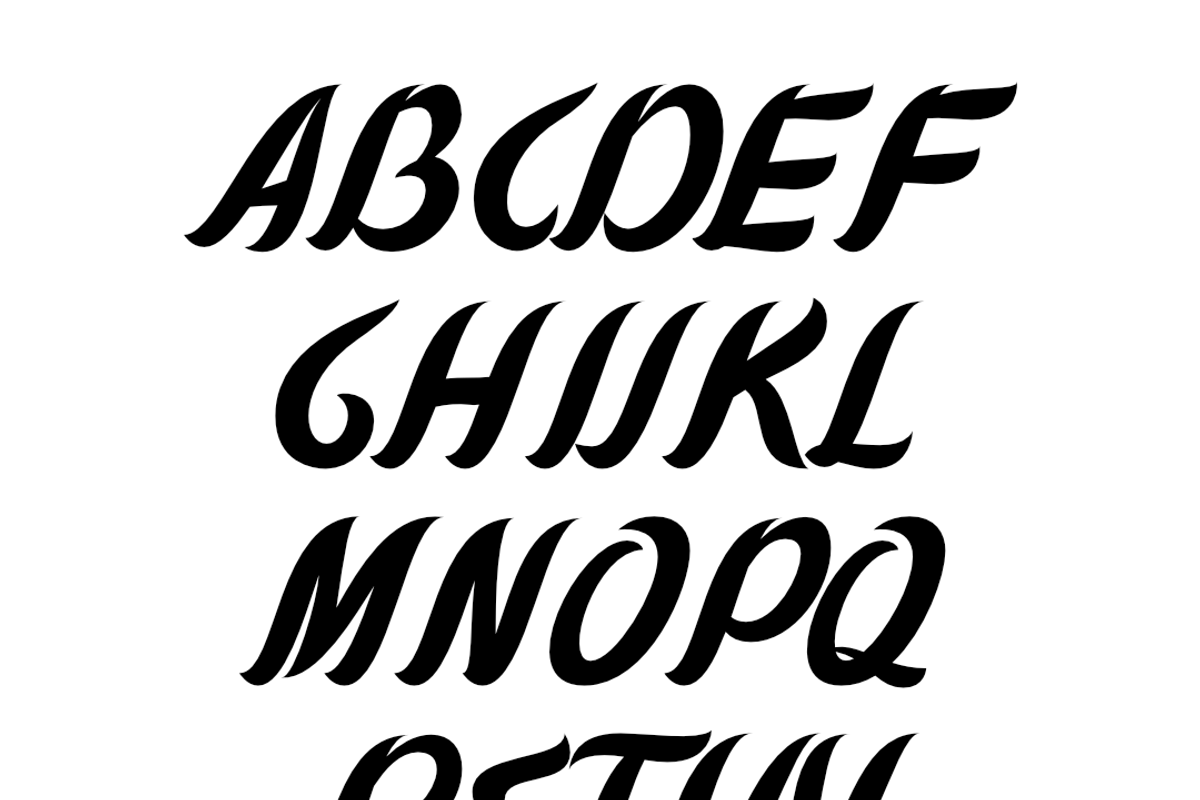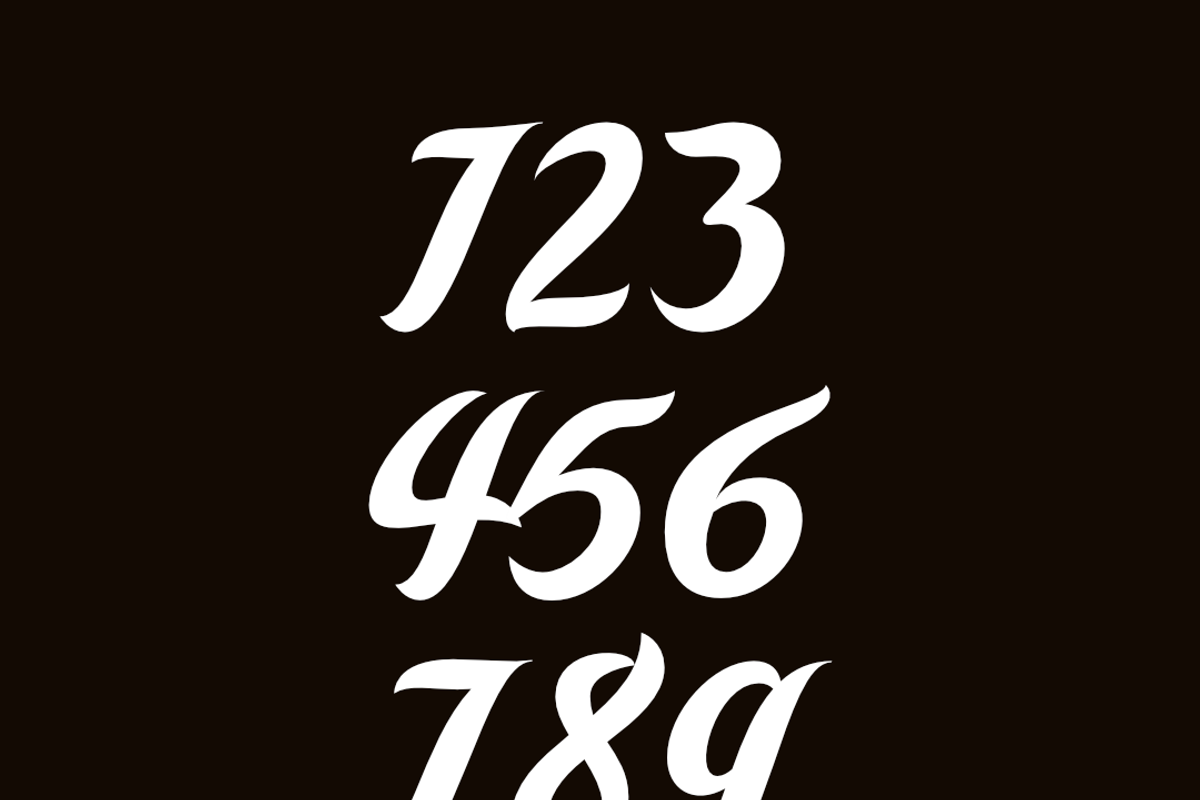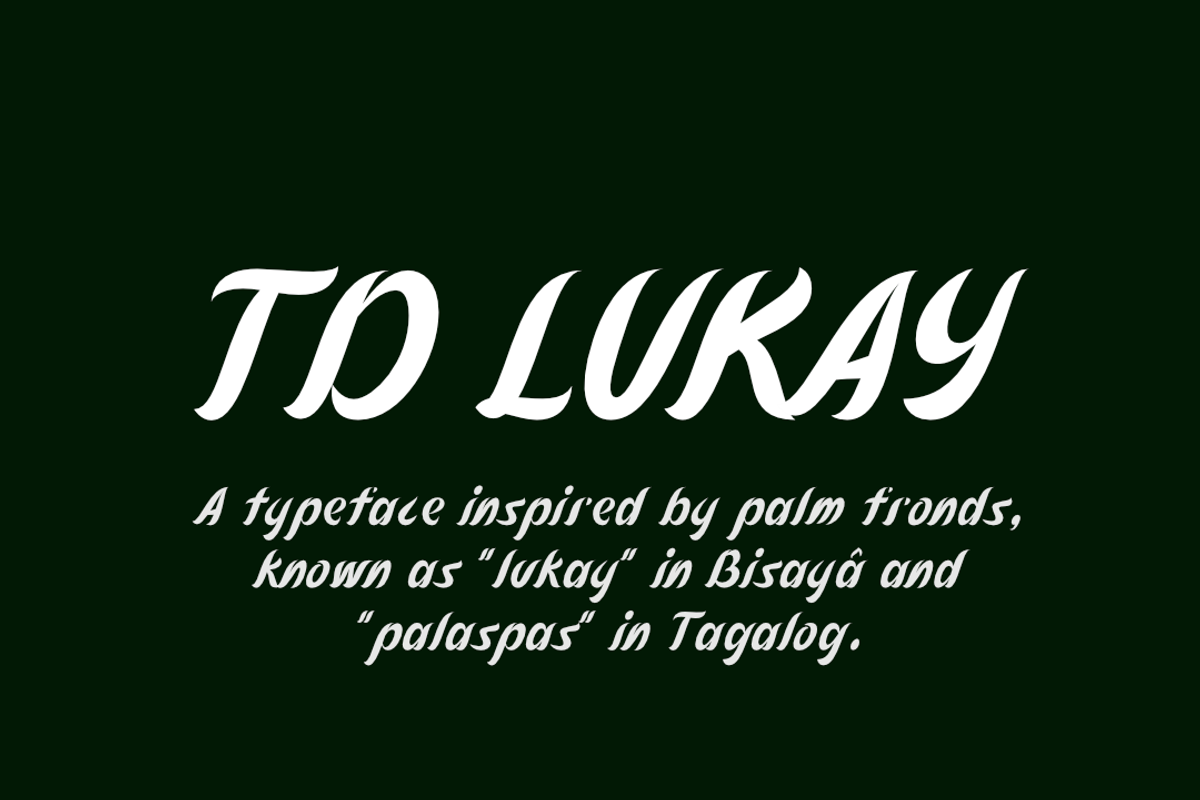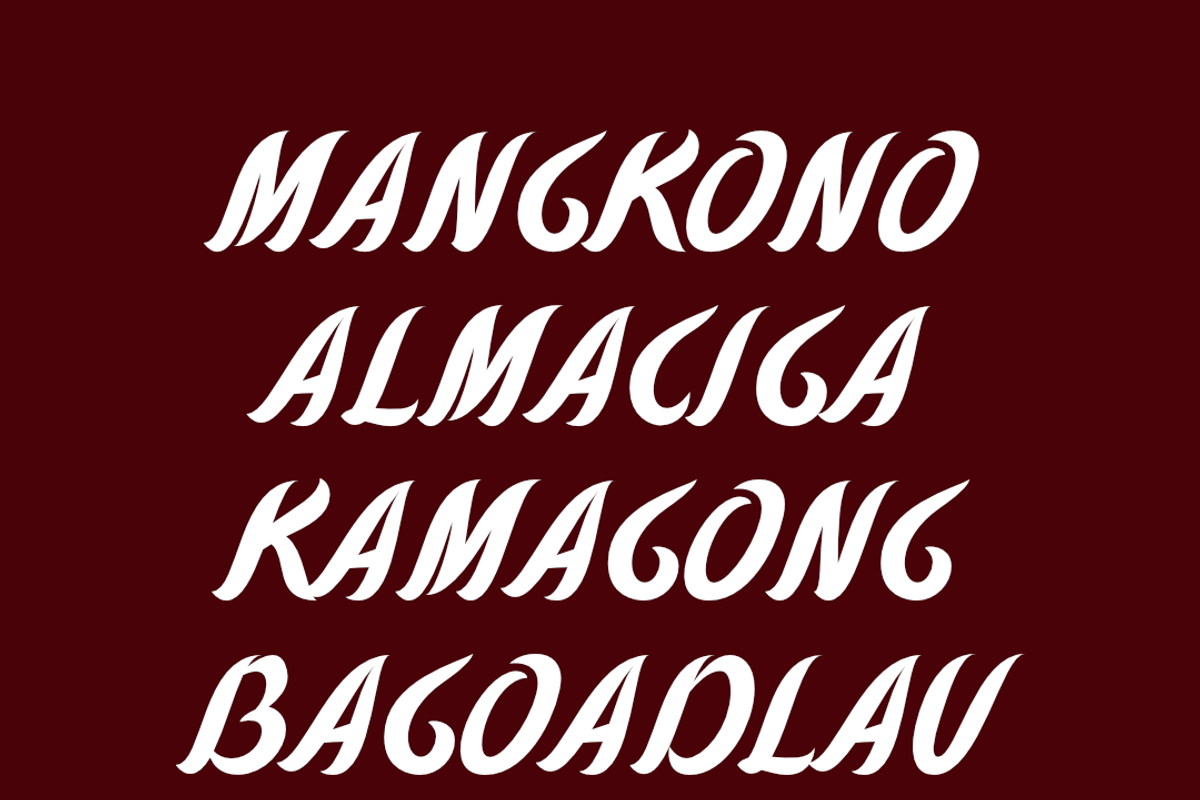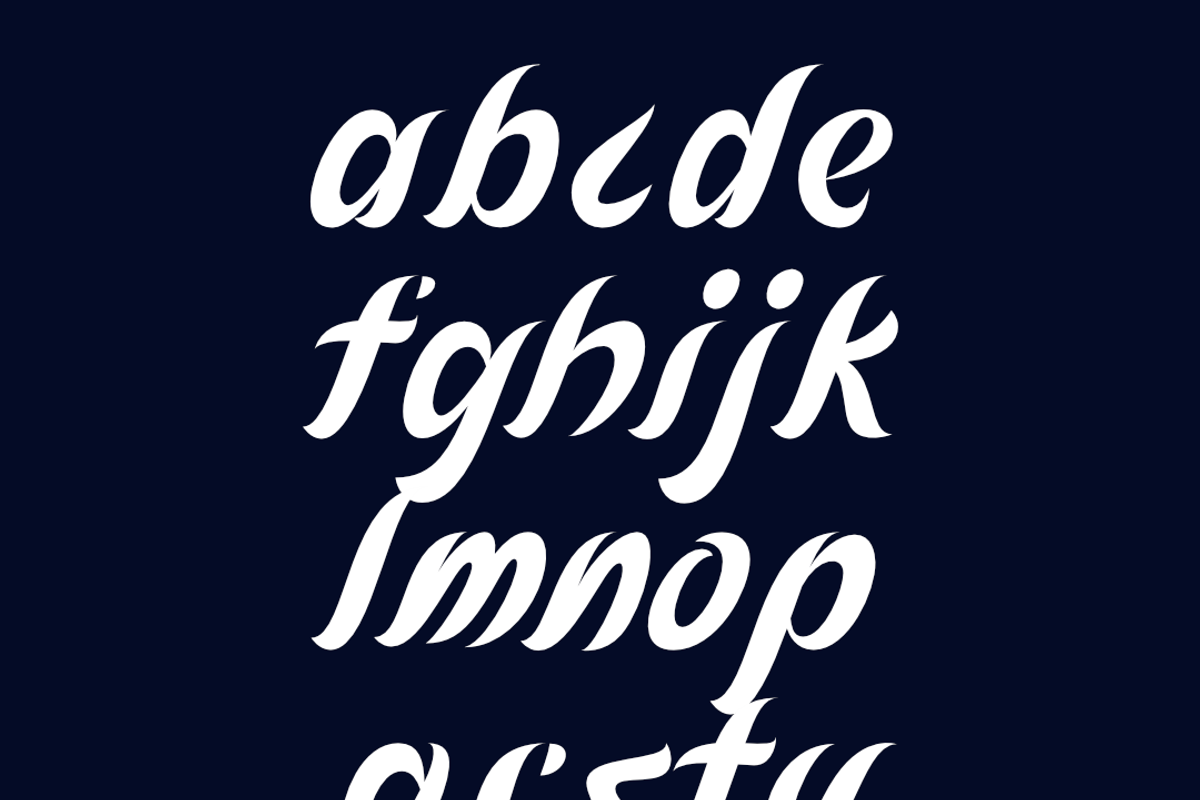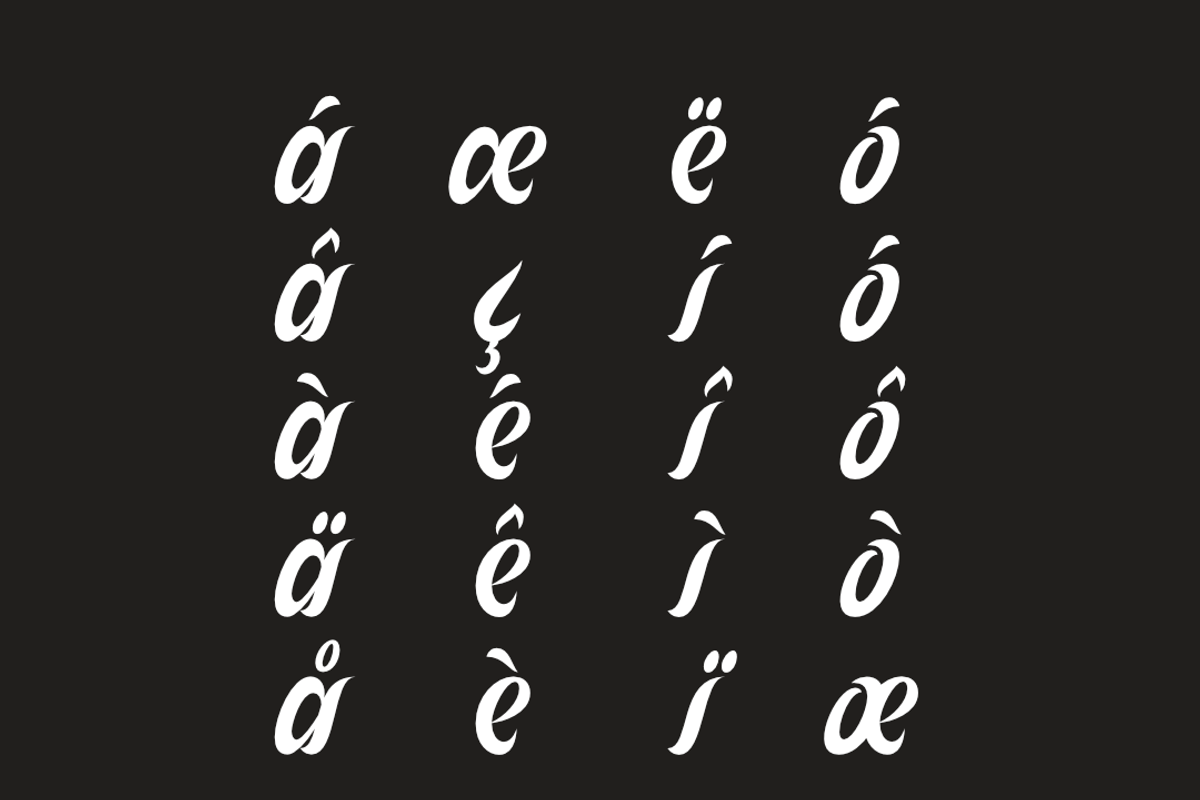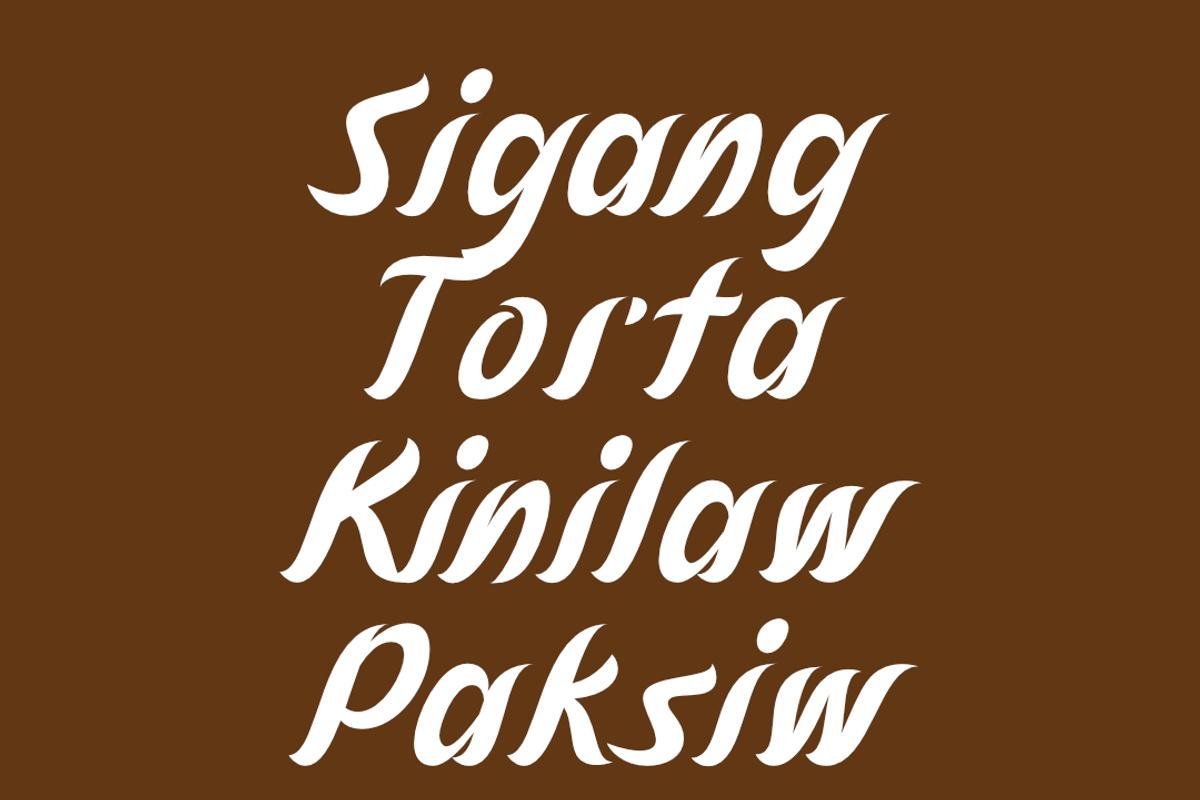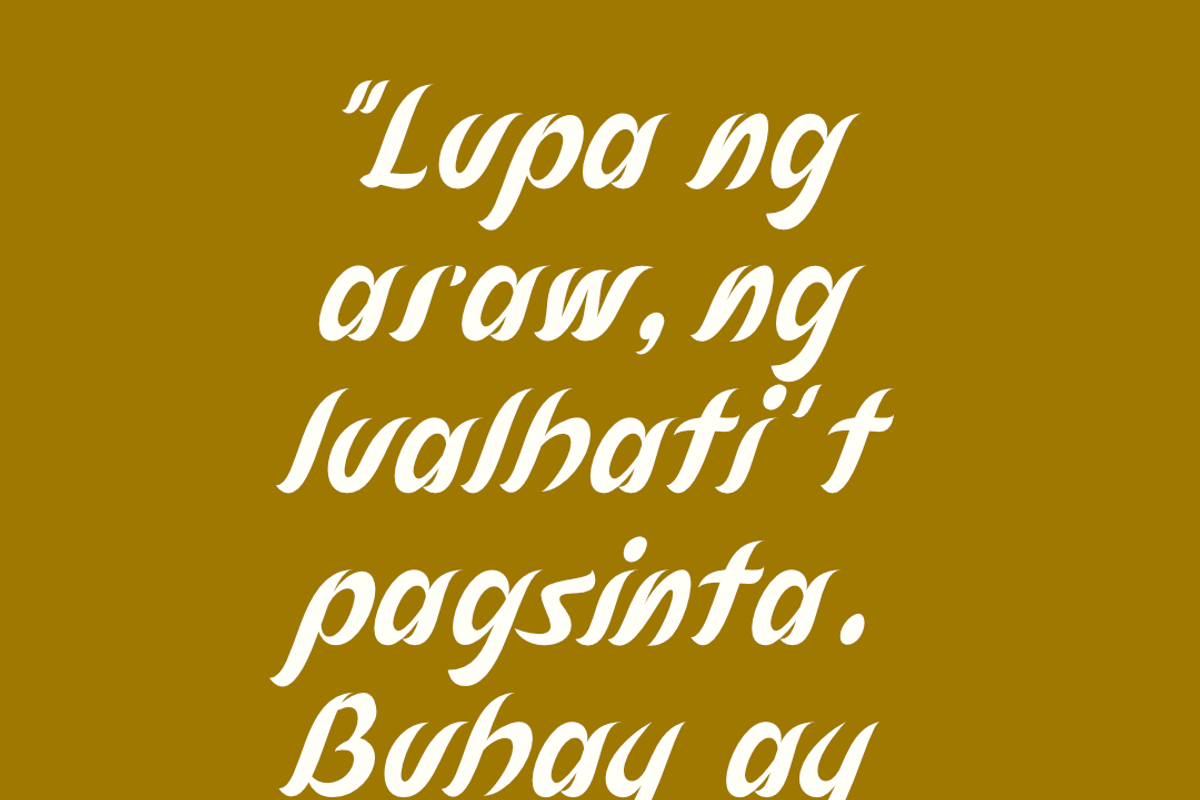
TD Lukay Pro
TD Lukay Pro is a typeface thoughtfully inspired by the graceful form of the palm frond—known as “lukay” in Bisayâ and “palaspas” in Tagalog. Each character in the typeface reflects the natural curves, sharp edges, and elongated branches of the palm leaves, capturing the essence of nature’s elegance. Beyond its visual appeal, TD Lukay carries deep symbolism: the palm has long represented victory, triumph, peace, and eternal life, infusing every design with cultural and emotional significance.
The Pro version of TD Lukay features a comprehensive set of 372 glyphs, offering extensive multilingual support for designers who need versatility and precision. Its refined structure and balanced forms make it perfect for a wide range of applications, from eye-catching posters and compelling print advertisements to sleek digital media projects and responsive web design.
With TD Lukay Pro, you’re not just choosing a font—you’re choosing a design element that combines aesthetic beauty with meaningful storytelling. Whether you aim to convey sophistication, cultural depth, or a sense of triumph, TD Lukay brings elegance and significance to every project.